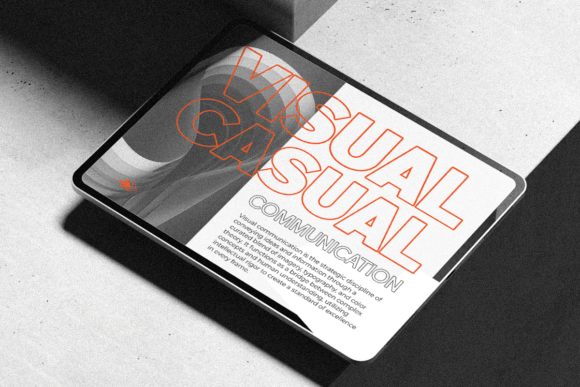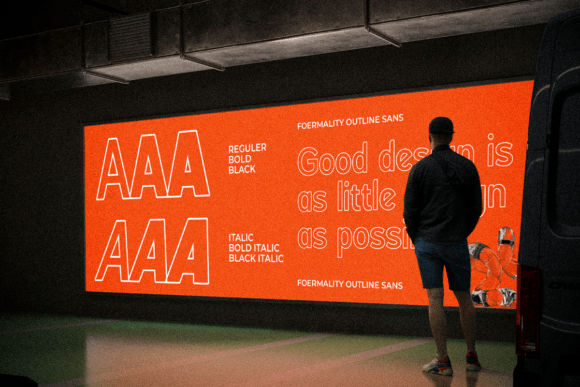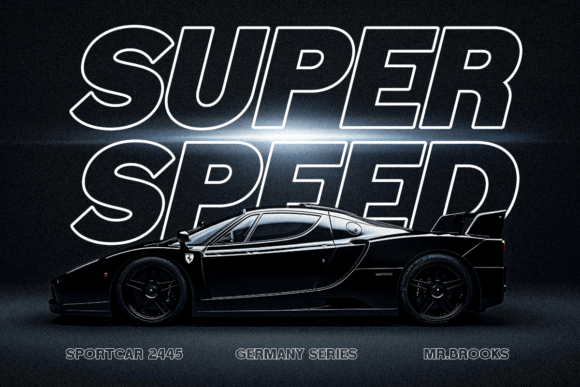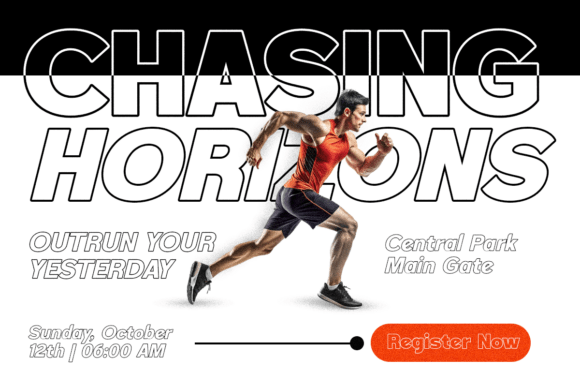
Unleash the Power of Foermality Font: The Ultimate Display Sans-Serif for Digital Design
In the realm of digital design, typography plays a crucial role in conveying the message and aesthetic of a brand. With the ever-evolving landscape of visual communication, designers and crafters are constantly on the lookout for innovative and impactful fonts that can elevate their work. Introducing Foermality Outline Sans, a high-octane display sans-serif type family engineered by Laroybatype, designed to command the cutting edge of digital design.
Geometric Anatomy Meets Technical Linework
Foermality Font boasts an ultra-wide, geometric anatomy built with clean, technical linework and sharp, unyielding corners that project an immediate futuristic authority. This typeface is not just a font, but a statement piece that can transform the visual identity of any design project. The stark neon-orange and crisp white outline strokes of Foermality Font pop with maximum contrast against dark backgrounds, making it an extraordinary choice for a wide range of applications.
Ultimate Versatility Across High-Impact Layouts
Foermality Font is designed for ultimate versatility across high-impact layouts, making it an ideal choice for designers and crafters who want to create visually stunning and cohesive brand experiences. The collection boasts a robust lineup of styles, including Regular, Italic, Bold, Black, Bold Italic, and Black Italic. This extensive range of styles allows designers to experiment with different typography combinations, ensuring that their visual identity stands out in a crowded digital landscape.
Applications and Use Cases
Foermality Font is an extraordinary choice for a variety of design projects, including:
- Tech Branding: Foermality Font’s futuristic and high-tech aesthetic makes it an ideal choice for tech brands looking to establish a strong visual identity.
- Cyberpunk Video Game Titles: The font’s bold and edgy design is perfect for creating eye-catching titles for cyberpunk video games.
- Automotive Merchandise: Foermality Font’s industrial cool and precision-engineered design make it a great fit for automotive merchandise, such as car decals and accessories.
- Electronic Music Festival Posters: The font’s bold and vibrant design is well-suited for creating eye-catching posters for electronic music festivals.
- Modern Athletic Apparel: Foermality Font’s sleek and high-tech design makes it an excellent choice for modern athletic apparel, such as sportswear and footwear.
Delivering Professional Structural Precision and Industrial Cool
Foermality Font delivers a profound sense of professional structural precision and legendary industrial cool to your visual identity. Its sharp, unyielding corners and clean, technical linework ensure that your headers look unmistakably iconic. With Foermality Font, designers and crafters can elevate their work and create visually stunning brand experiences that leave a lasting impression.
In conclusion, Foermality Font is a game-changing display sans-serif type family that is engineered to command the cutting edge of digital design. Its ultra-wide, geometric anatomy, technical linework, and sharp corners make it an ideal choice for designers and crafters looking to create visually stunning and cohesive brand experiences. With its ultimate versatility across high-impact layouts and extensive range of styles, Foermality Font is an extraordinary choice for a wide range of design projects.